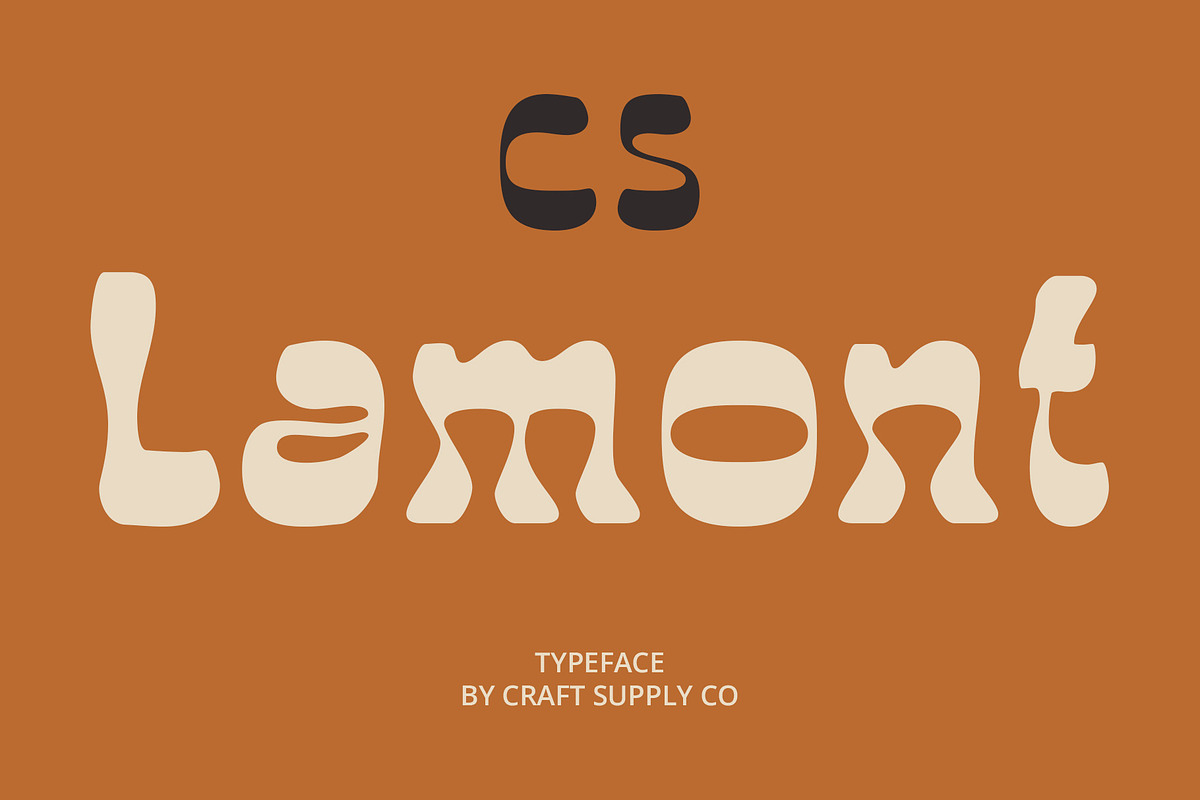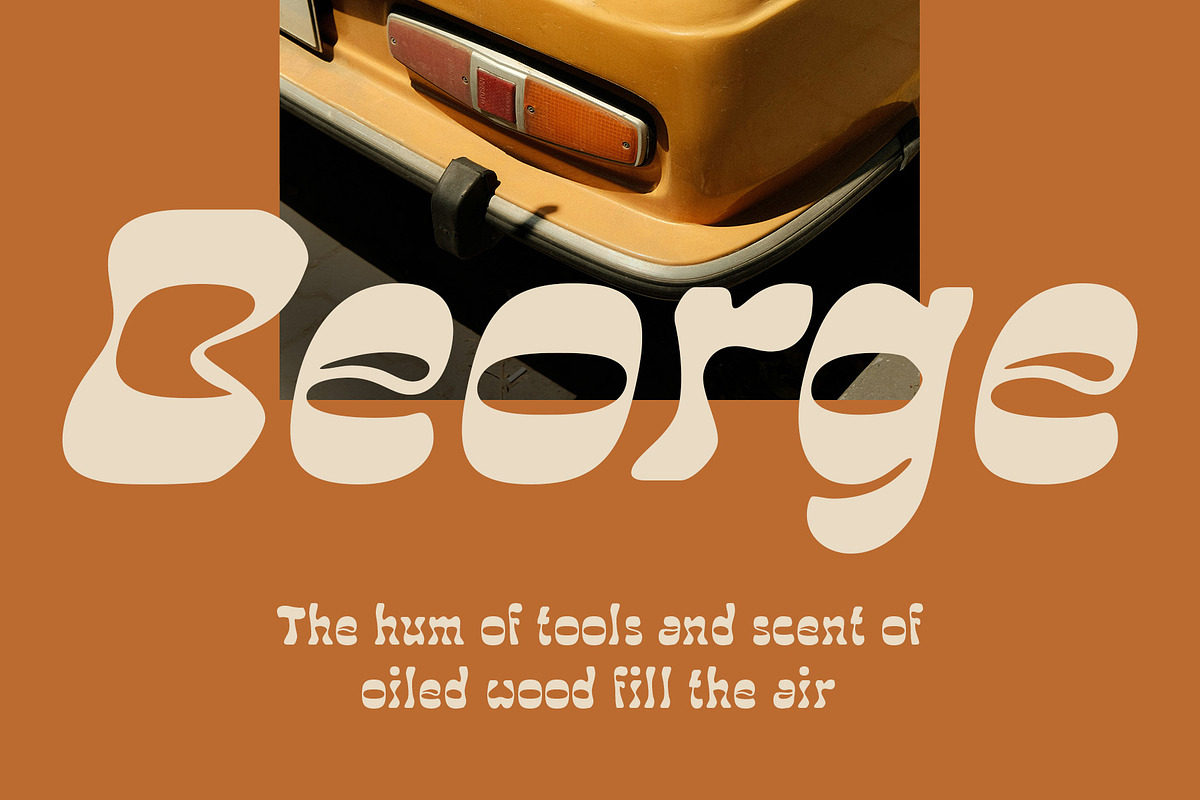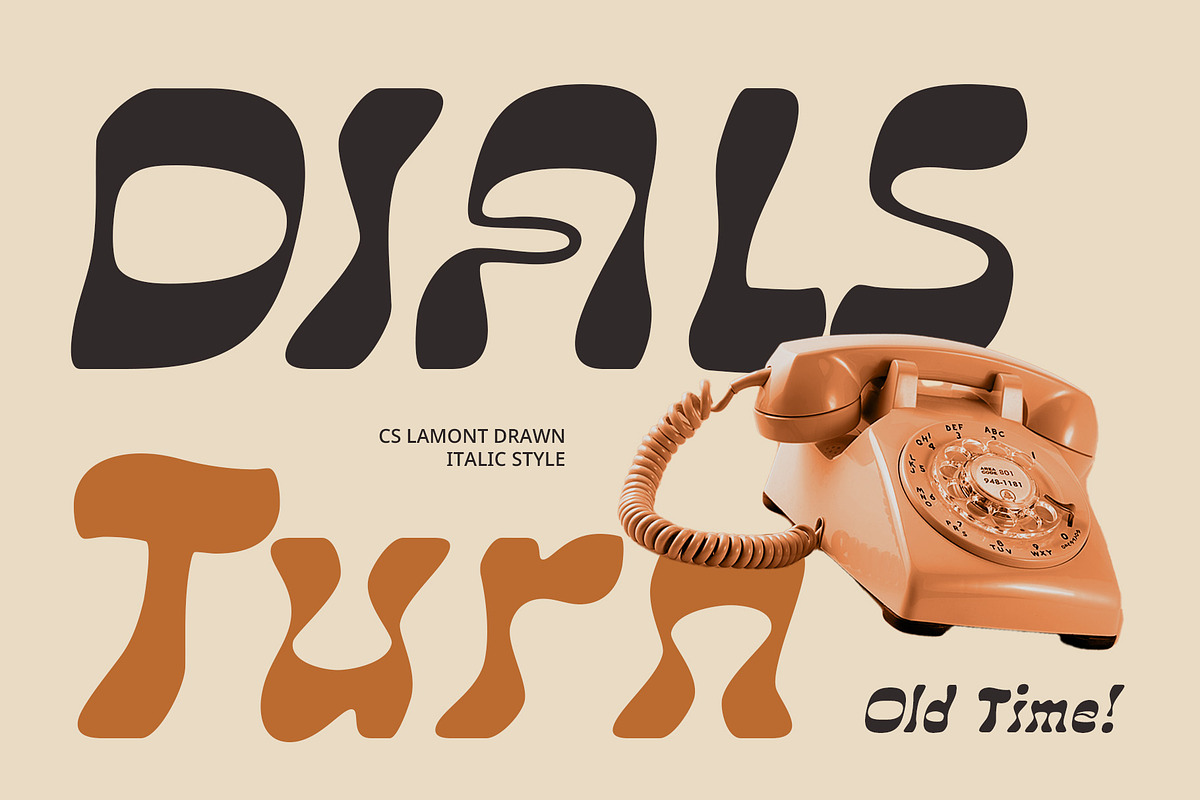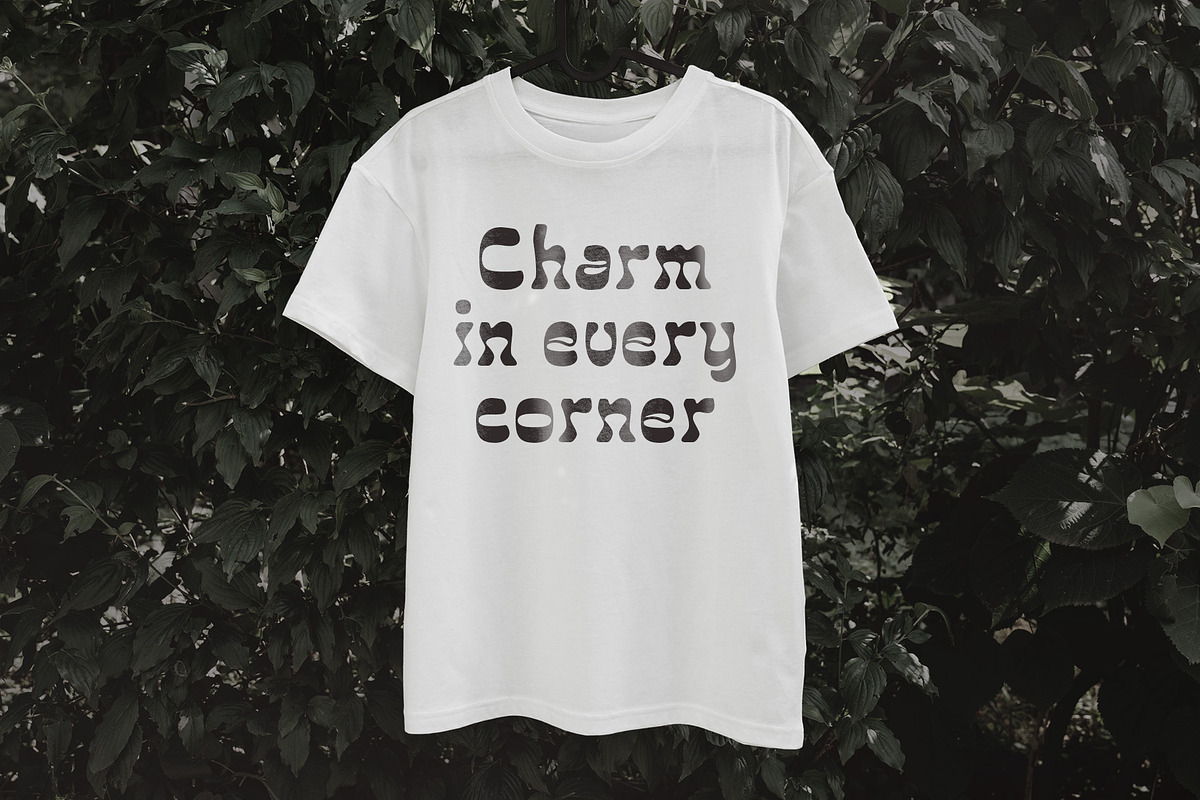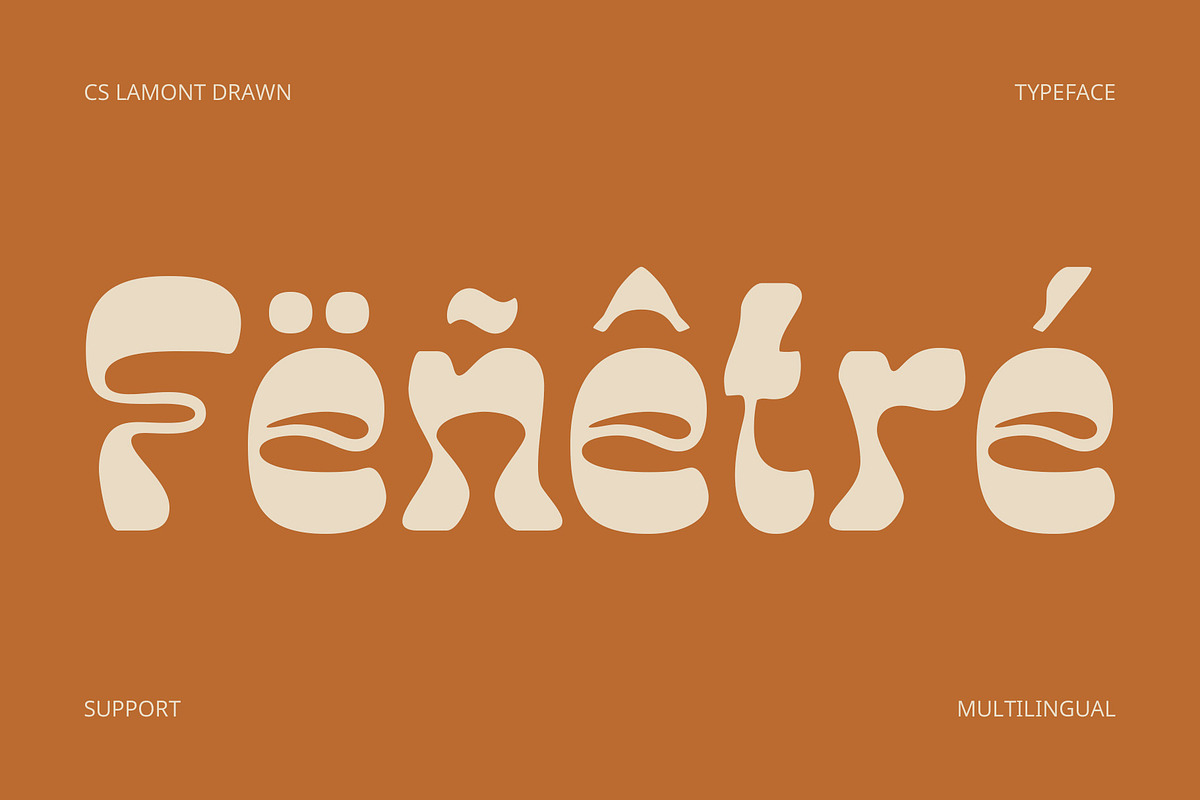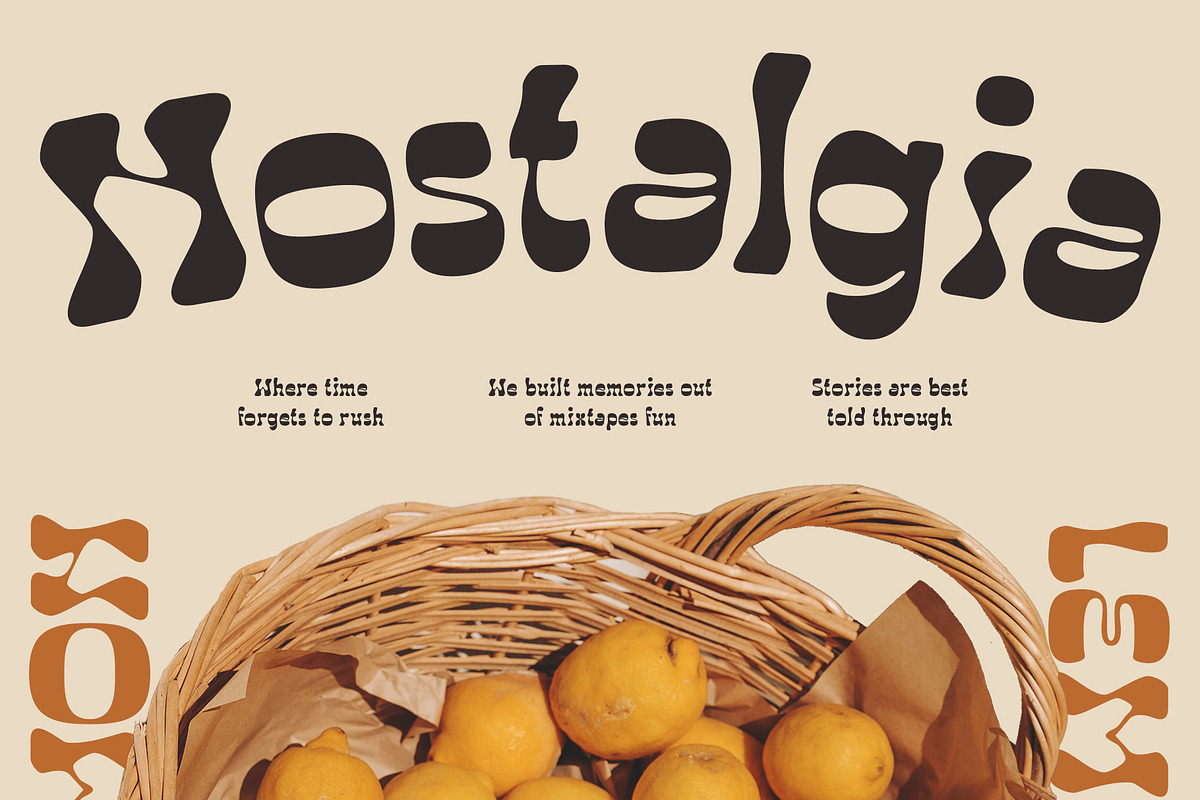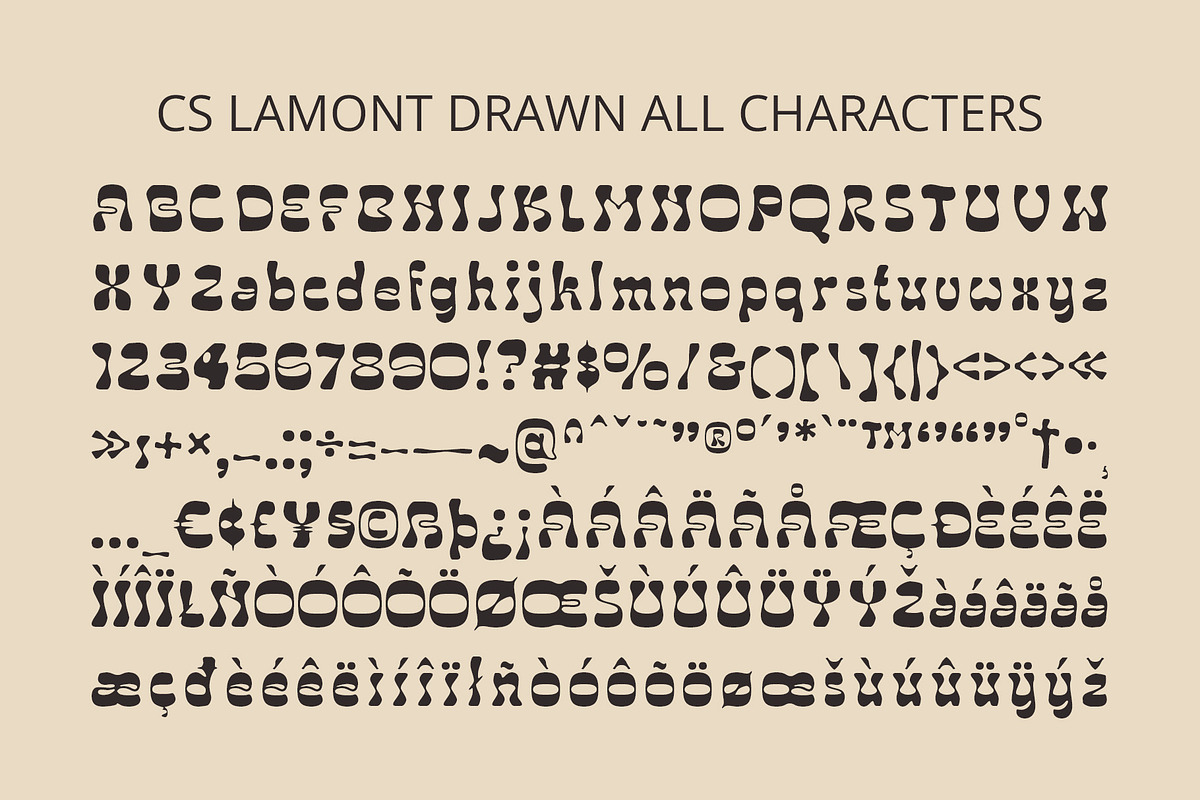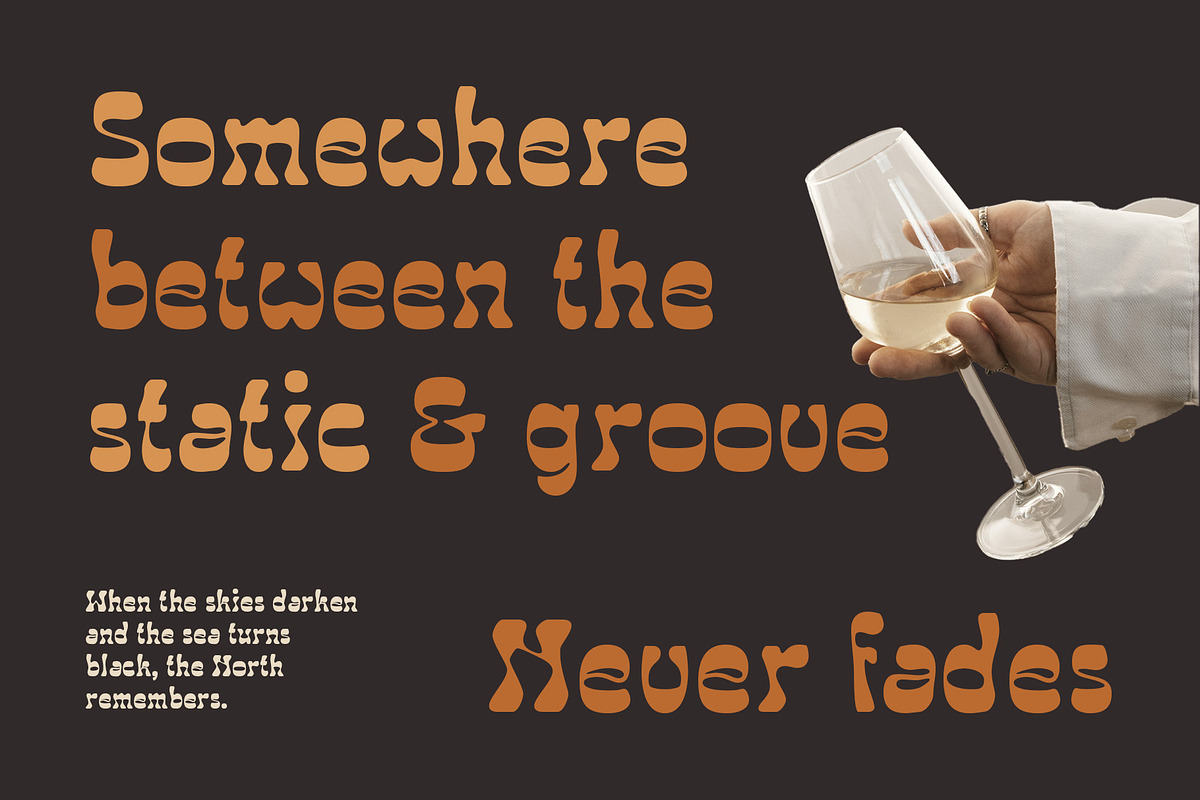
CS Lamont Drawn
CS Lamont Drawn – Bold Playfulness with Retro Edge
Reverse Contrast for a Unique Look This is a striking display font that features a reverse contrast style—where horizontal strokes are bolder than vertical ones. This unexpected typographic twist creates a dynamic and unconventional appearance that immediately captures attention and adds visual rhythm to any layout.
Retro Funky Vibe with Energetic Flair Infused with retro and funky influences, this youthful, quirky font exudes playful energy and bold personality. Its lively forms and colorful spirit bring a nostalgic charm while remaining fresh and contemporary—making it perfect for vibrant, youth-driven designs that aim to be both fun and stylish.
Handcrafted Feel with Artistic Character The drawn effect adds a handcrafted, slightly rough texture, enriching the font with an organic and expressive quality. This artistic layer gives the typeface a more human, tactile feel, balancing its bold geometry with creative imperfection and charm.
Perfect for Bold and Joyful Design Projects This handcrafted font is ideal for music posters, creative branding, album art, or any visual project seeking a standout, nostalgic, and energetic look. With its blend of structure and spontaneity, it brings joyful expression and unmistakable personality to every design it touches.